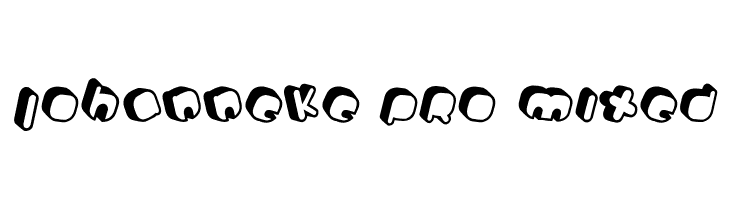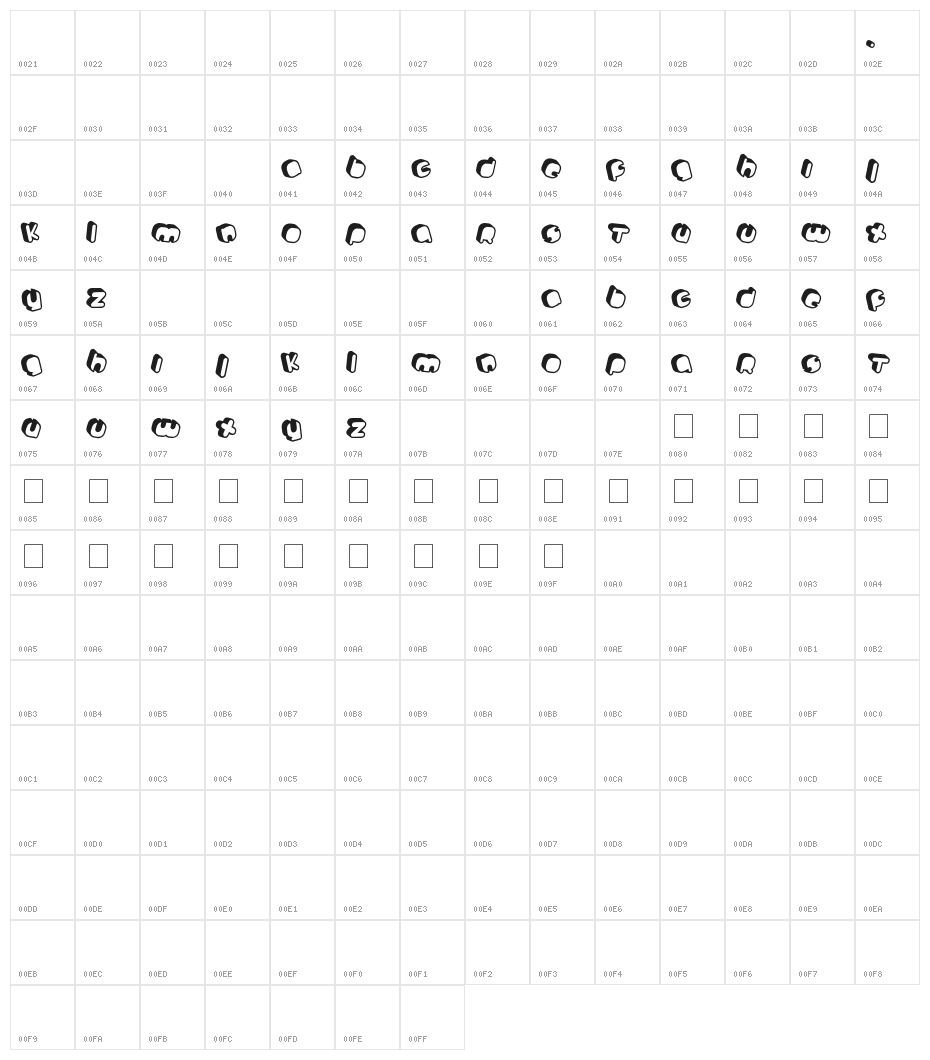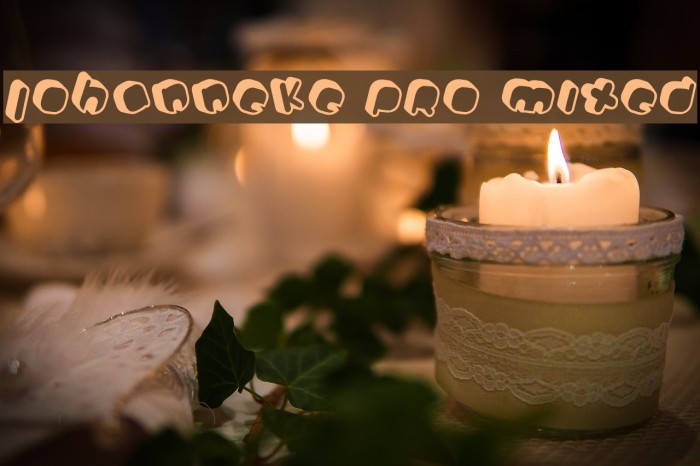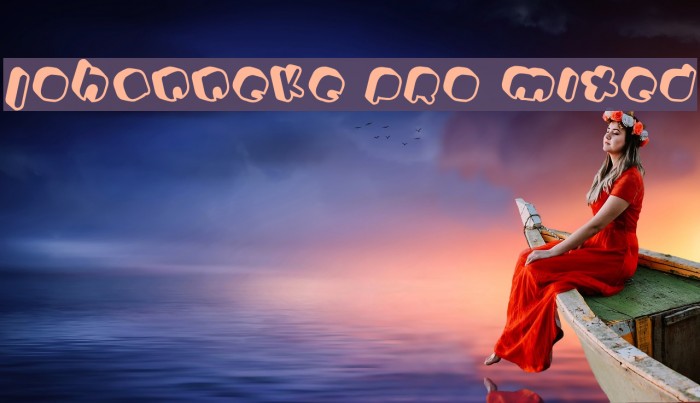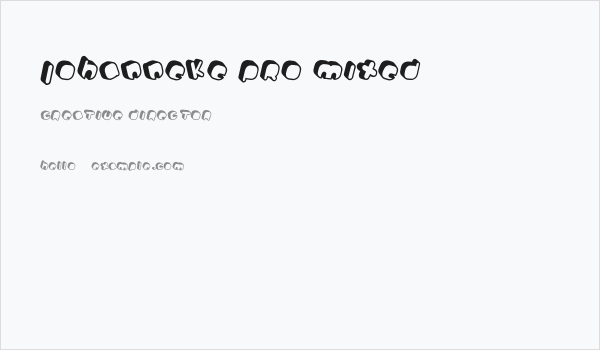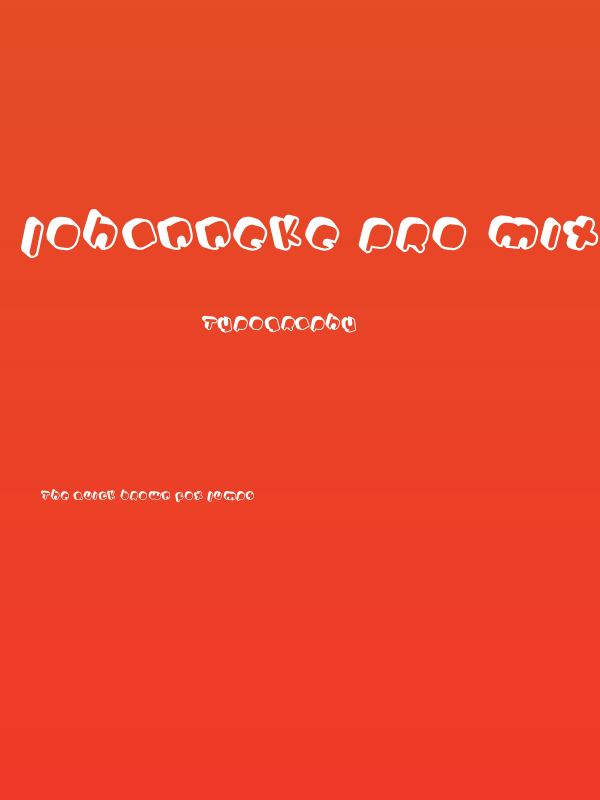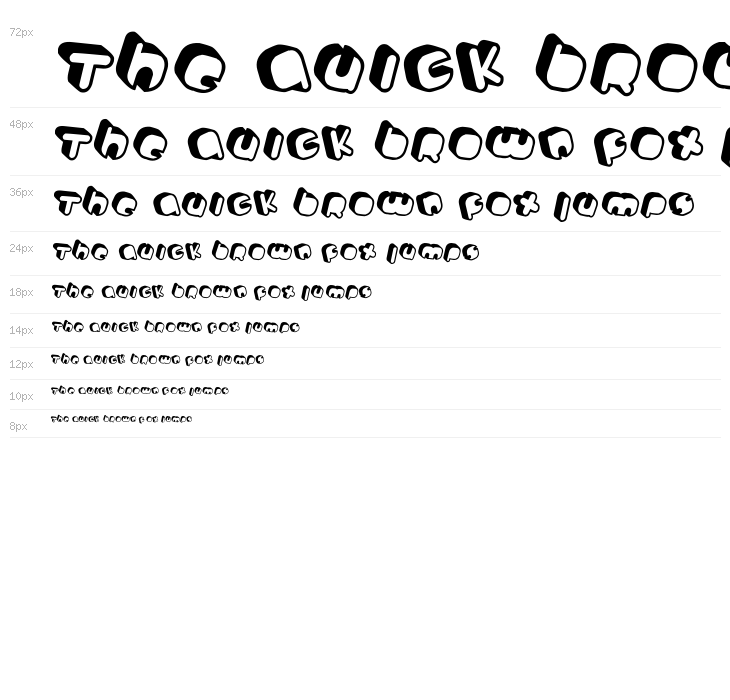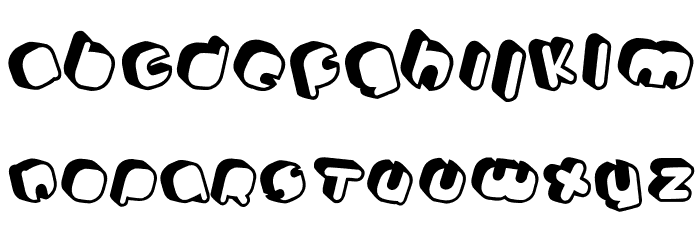
Johanneke Pro Mixed Font
Johanneke Pro Mixed Description
This playful and bold font features a unique, hand-drawn style with a bubbly and rounded appearance. Each character is outlined with a thick, black border, giving it a cartoonish and whimsical look. The letters are slightly irregular, adding to the casual and informal vibe. The font's design is reminiscent of graffiti or street art, making it stand out with its artistic flair. The characters are closely spaced, enhancing the compact and cohesive feel of the text. This font is ideal for projects that require a fun and engaging visual element, such as children's books, posters, or creative branding.
| Overall Style | Whimsical, Playful |
| Proposed Projects | Children's books, posters, creative branding, street art-inspired designs. |